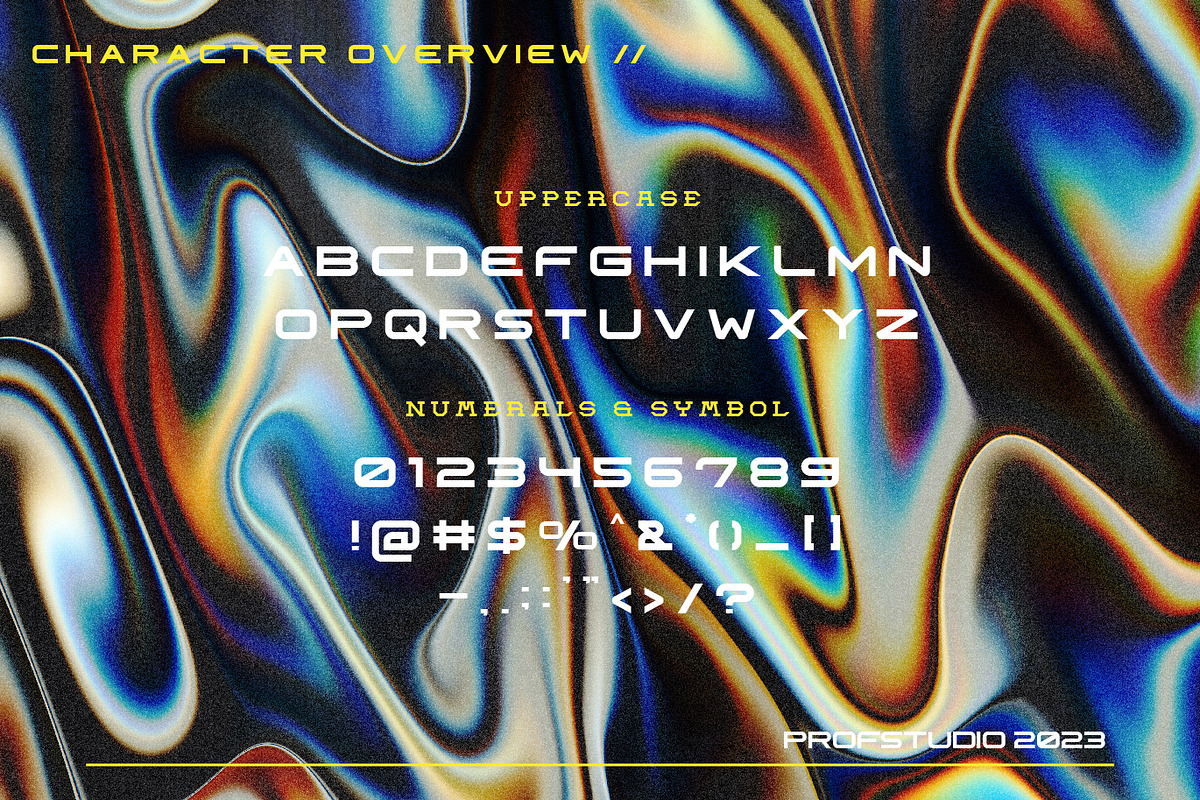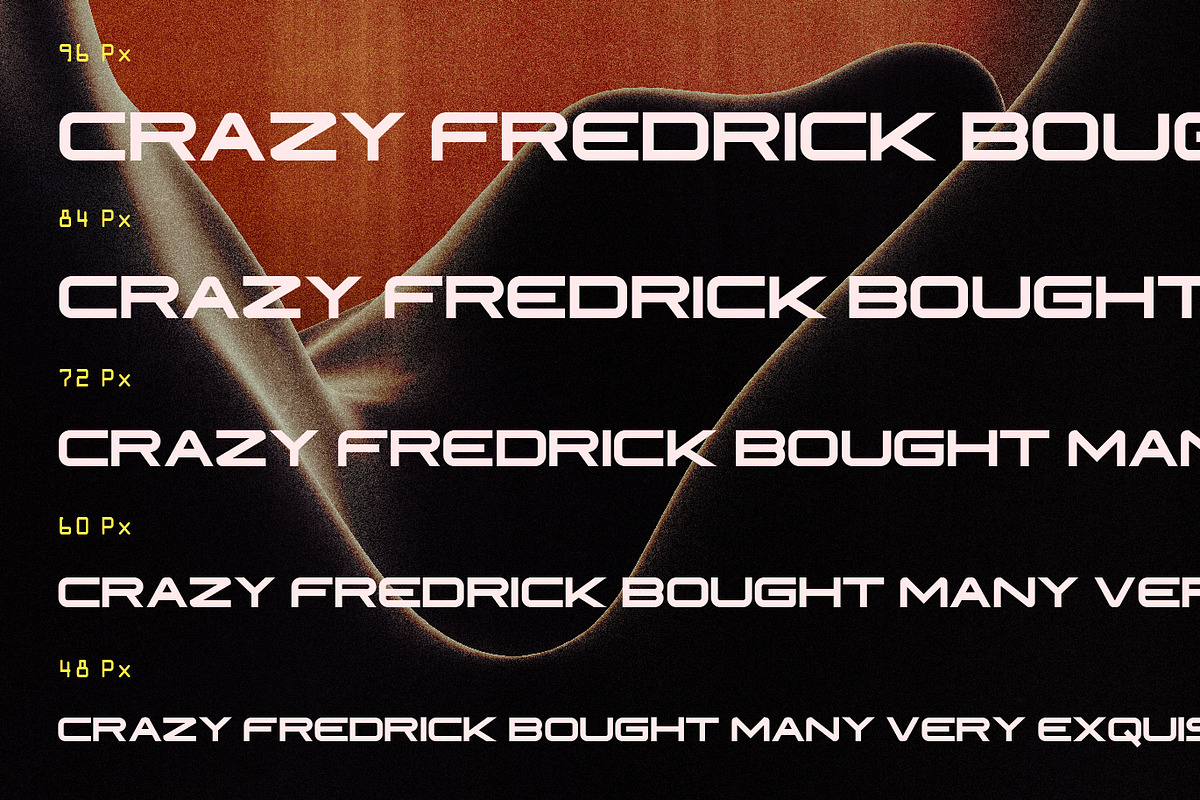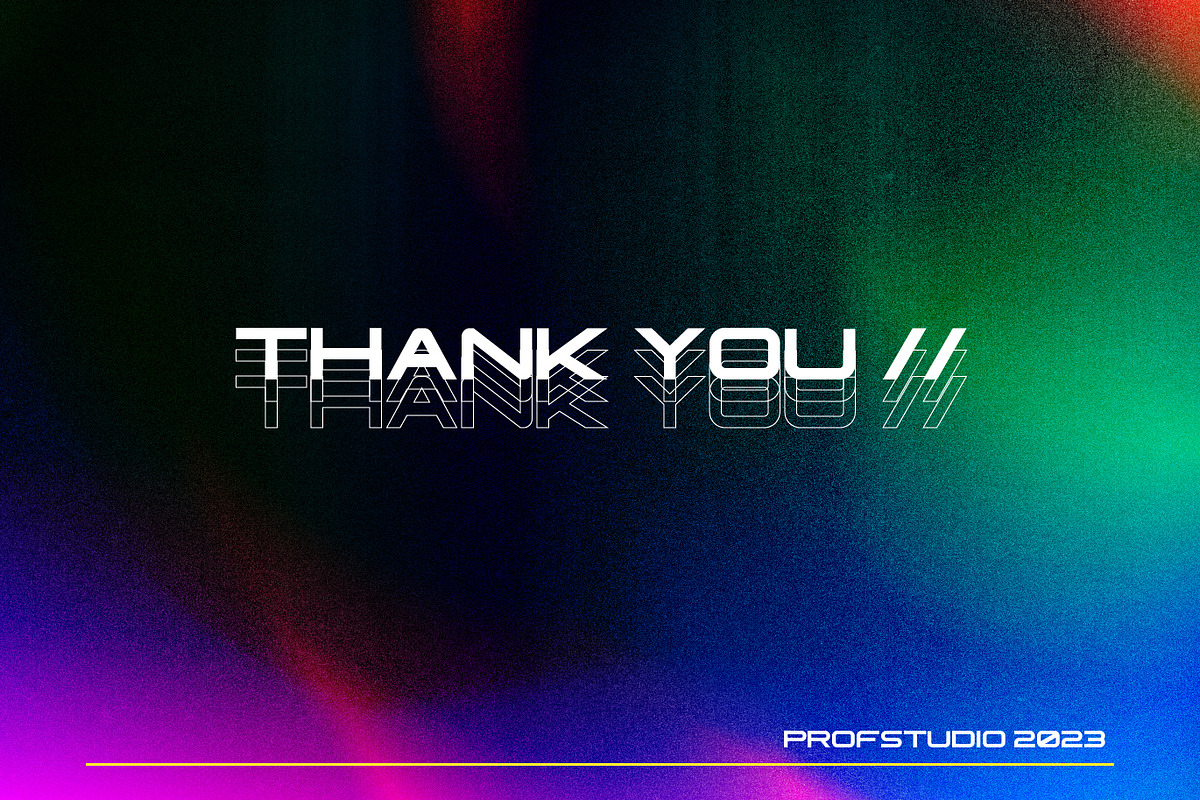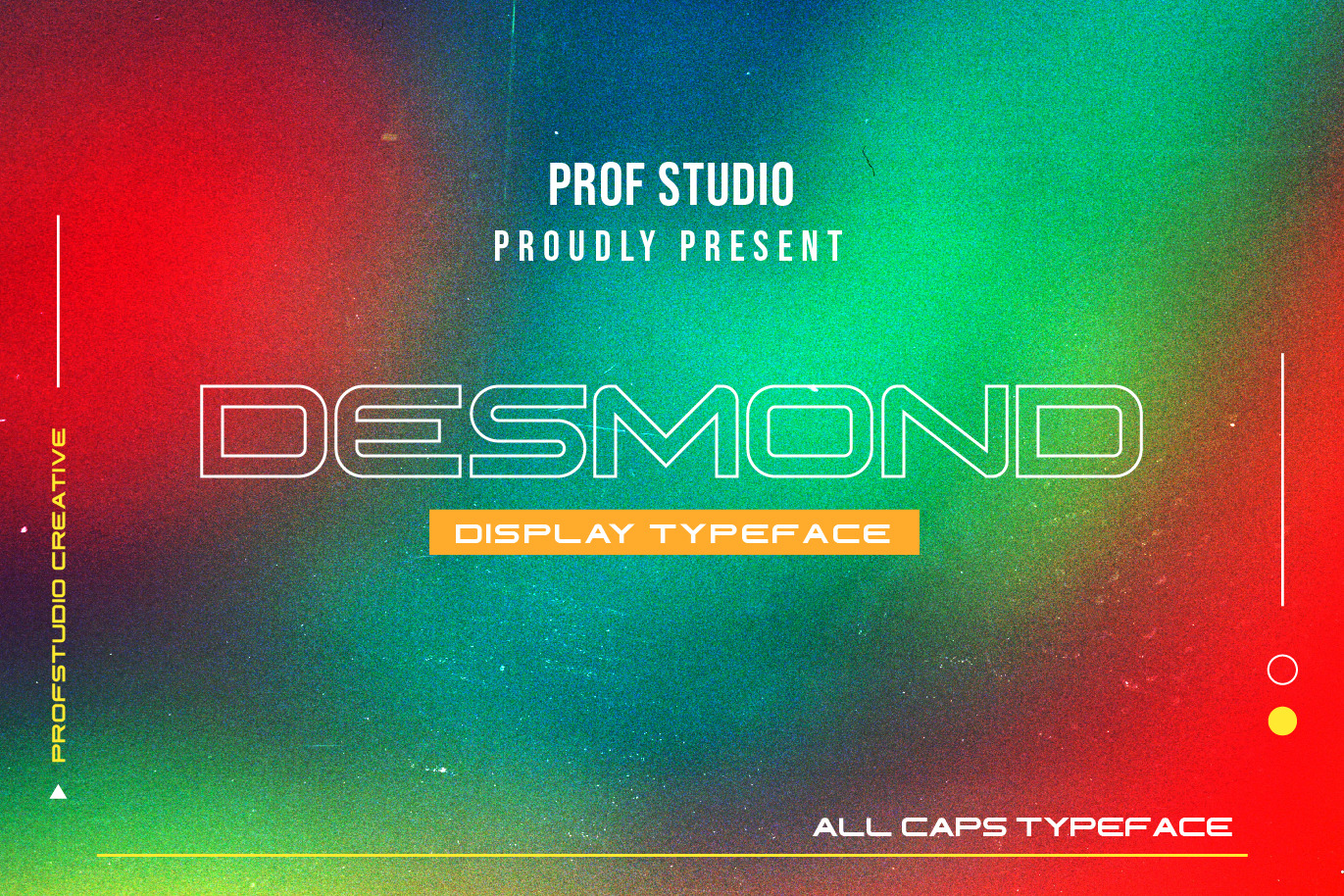
Desmond - Wide Display Typeface
Hi Ladies and Gentleman ! Proudly present Wide Display Typeface “Desmond” for your business.
Desmond - Wide Display Typeface which can be interpreted professional. we keep this font looks Playful, Wide, readable, stylish, catchy and easy to use.
Desmond - is the great choice for event design ,magazine, poster, and many other design project. Desmond here to make your work to high level!!!